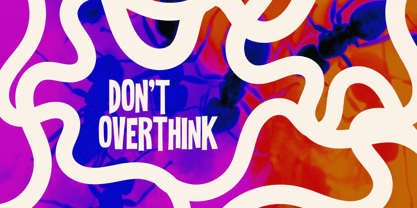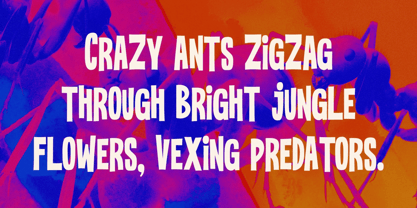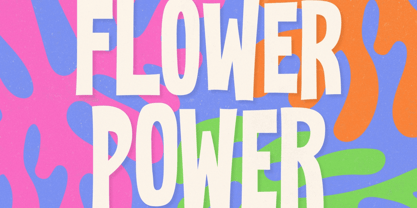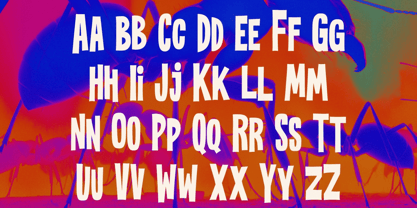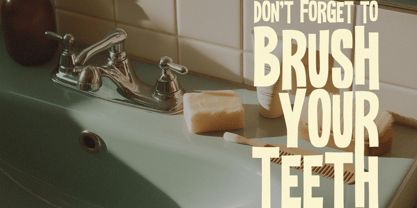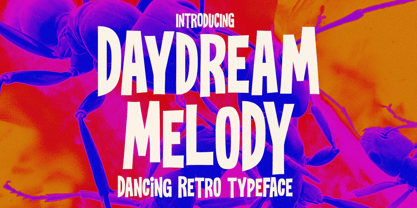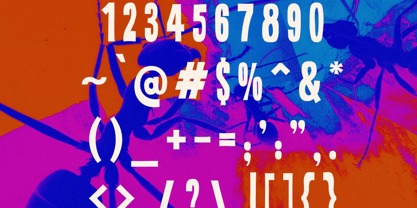
Daydream Melody
Die Schriftfamilie Daydream Melody wurde von Igor Ovsyannykov entworfen und von Hipfonts veröffentlicht. Daydream Melody enthält 1 Stile. Mehr über diese Familie
Step into the golden era of design with Daydream Melody, a retro-inspired mid-century modern sans serif that dances with personality, rhythm, and vintage charm. Inspired by the expressive typography of the 1950s, 60s, and 70s, this typeface blends clean geometric structure with playful movement, creating letterforms that feel bold, stylish, and effortlessly nostalgic.
With its lively curves, confident shapes, and unmistakable vintage flair, Daydream Melody brings warmth, groove, and timeless character to any project. Whether you're designing eye-catching packaging, statement posters, editorial headlines, logos, album covers, café branding, or social media graphics, this typeface instantly adds personality and retro sophistication.
Cool, expressive, and packed with old-school soul, Daydream Melody is made for designers who want their work to stand out with authentic vintage energy.